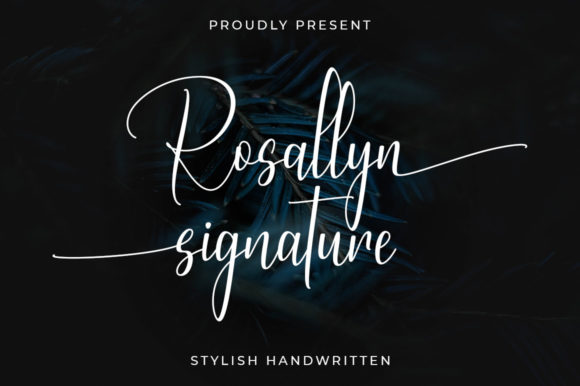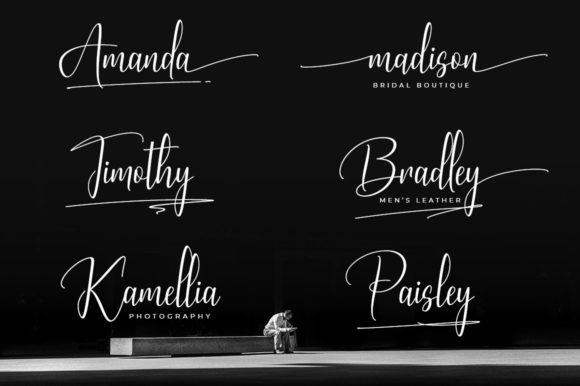
About Rosallyn Signature Font
Rosallyn Signature is a smooth and free-flowing handwritten font perfect for logos, wedding stationery, cards, gift designs, photography, watermarks, product packaging, and quotes. Use it with confidence on your creative projects, and they will capture everyone’s attention!